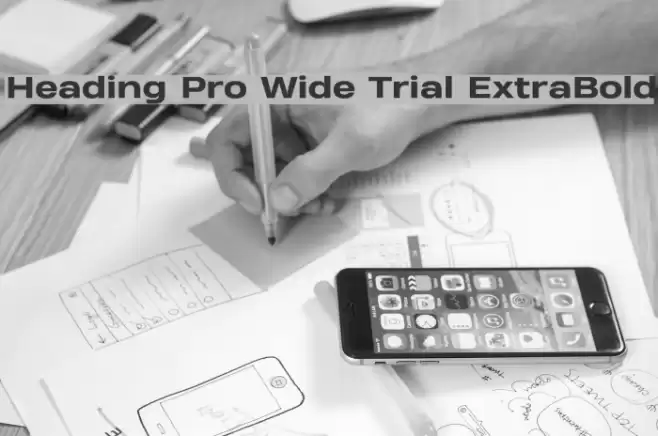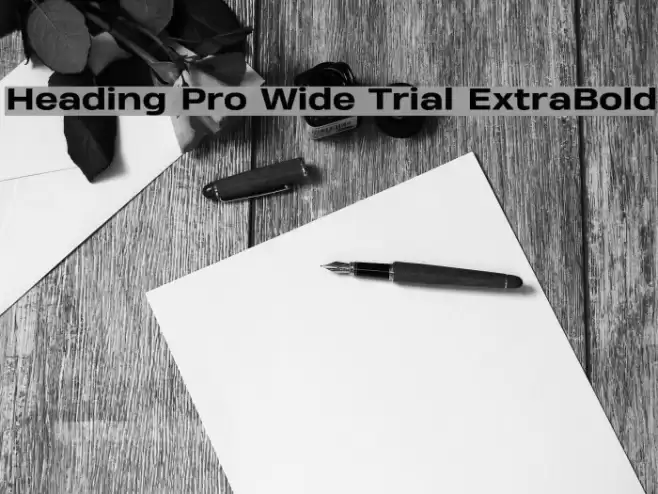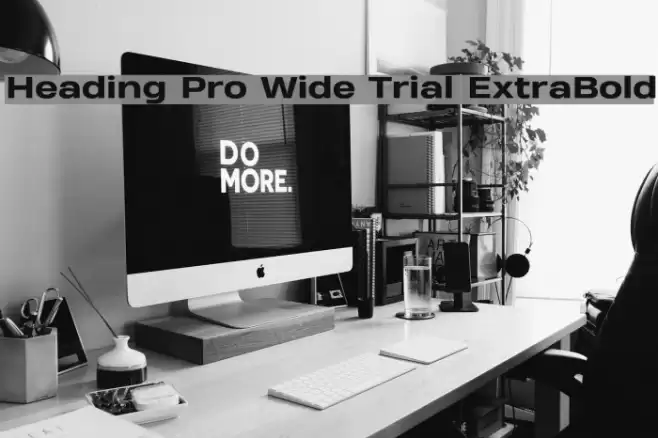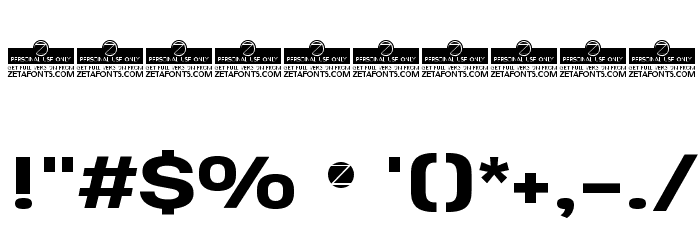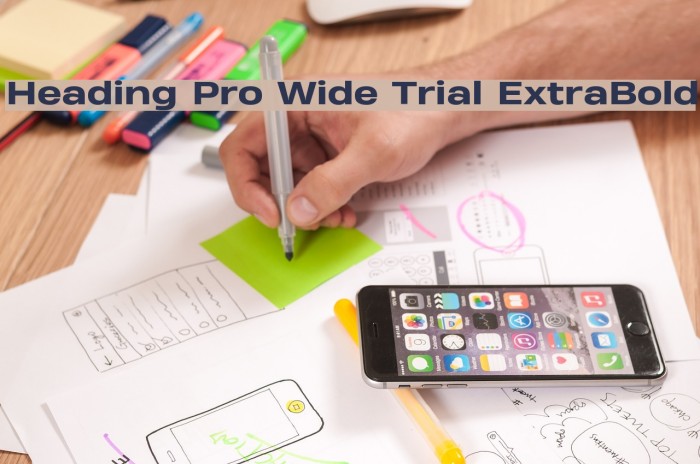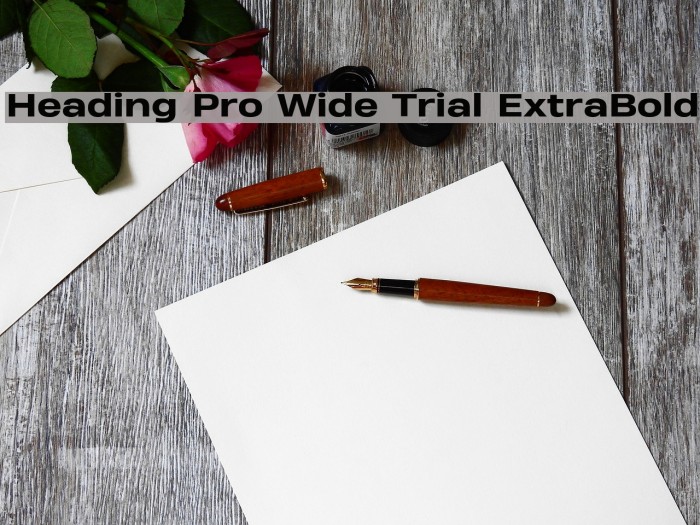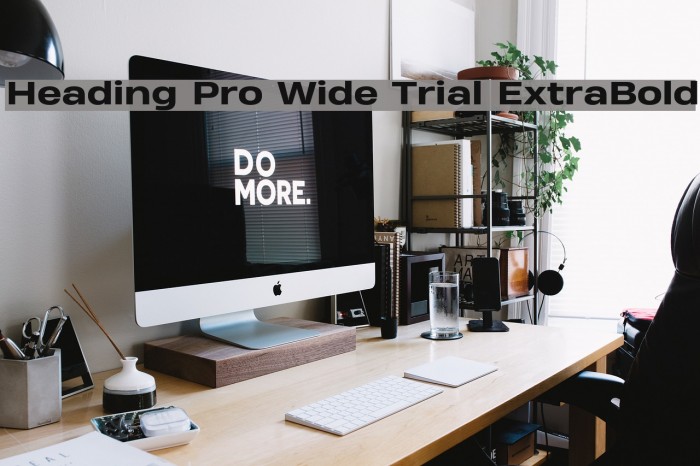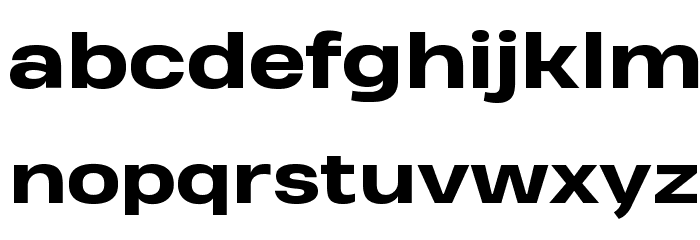
Heading Pro Wide Trial ExtraBold Font
Heading Pro Wide Trial ExtraBold Description
This font exhibits a bold and modern aesthetic with a wide stance, making it highly suitable for impactful headlines and attention-grabbing designs. The uppercase and lowercase letters are well-proportioned, maintaining a consistent weight throughout. The characters are designed with a geometric precision, offering a clean and professional look. The numerals and special characters are equally bold and clear, ensuring readability across various applications. This font's extra bold weight and wide width contribute to its strong visual presence, making it ideal for branding and advertising projects.
A bold, wide, and modern font perfect for impactful headlines from Uncategorized fonts.